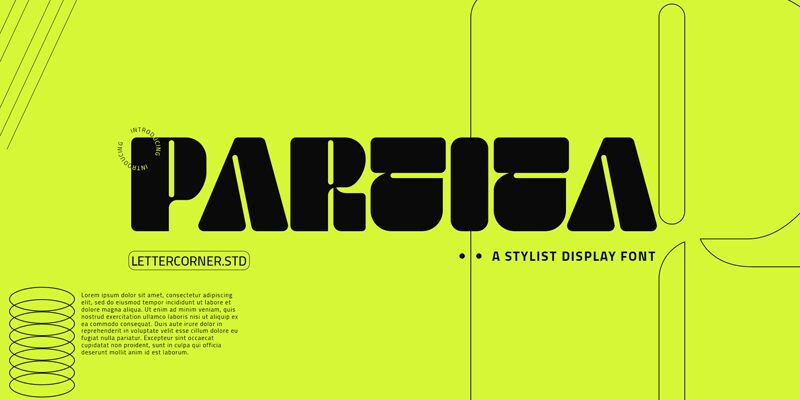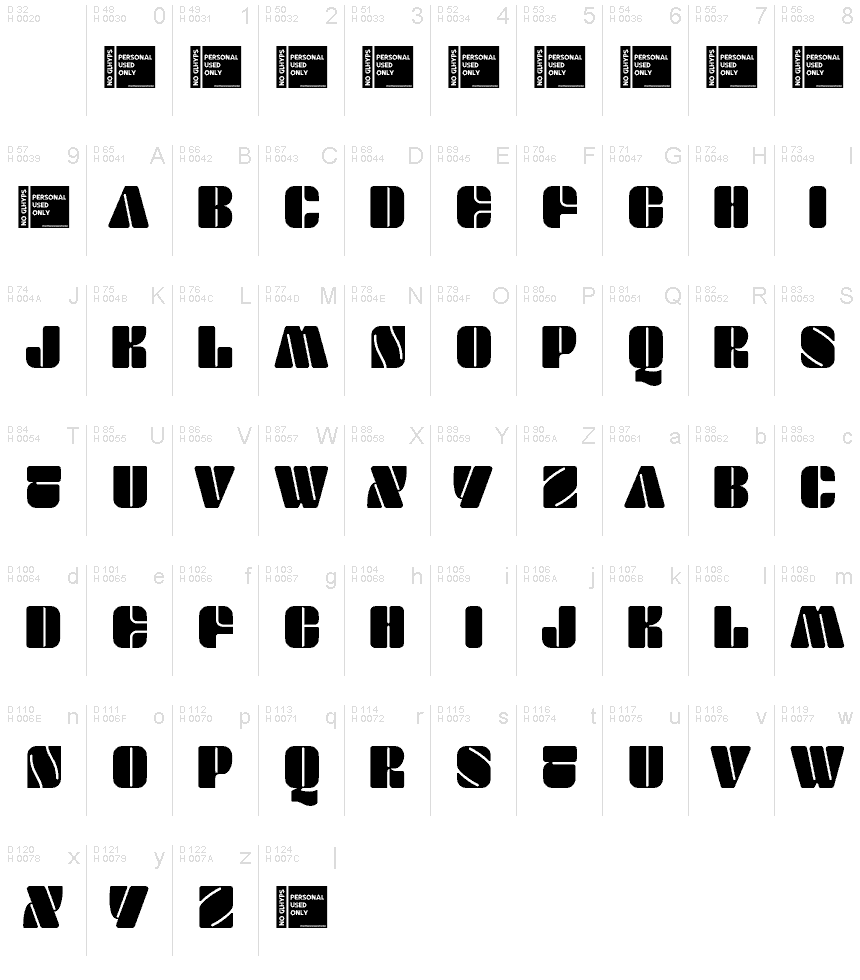
Partita Personal Used
Partita font by Mocha Frappuccino is a free display font with a futuristic style. The bold appearance of the letters is showcased through geometric, modular, and retro characters that work together cohesively for an impactful design.